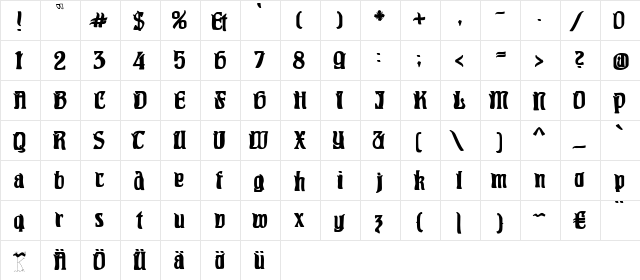
PittoresqJugendstil Regular
Design Context for PittoresqJugendstil Typeface
PittoresqJugendstil is a composed and adaptable typeface that performs quietly and consistently across a wide range of design contexts.